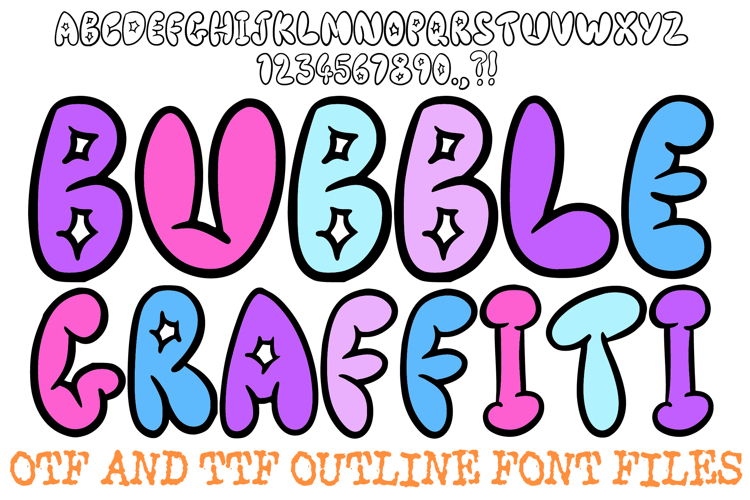
Bubble Graffiti Doodle Outline Font Typography Lettering ABC
Bring the energy of the streets to your canvas with the Bubble Graffiti Font! This hand-drawn display alphabet captures the iconic "throw-up" style of urban street art, featuring bold, puffy letterforms with a clean, modern finish. It is an ideal choice for streetwear branding, vinyl stickers, skate deck graphics, and high-impact social media headlines.
Each character is designed with a thick, "fat cap" silhouette and decorated with signature star-shaped highlights that give the letters a polished, glossy appearance. Whether you are tagging a digital wall or designing a fresh logo for an indie brand, the Bubble Graffiti Font offers a perfect blend of underground grit and playful, "Kawaii" charm.
Classic Throw-Up Aesthetic: Bold, rounded bubble shapes inspired by traditional graffiti lettering.
Clean Outlines: High-contrast borders ensure maximum legibility and make color-filling a breeze.